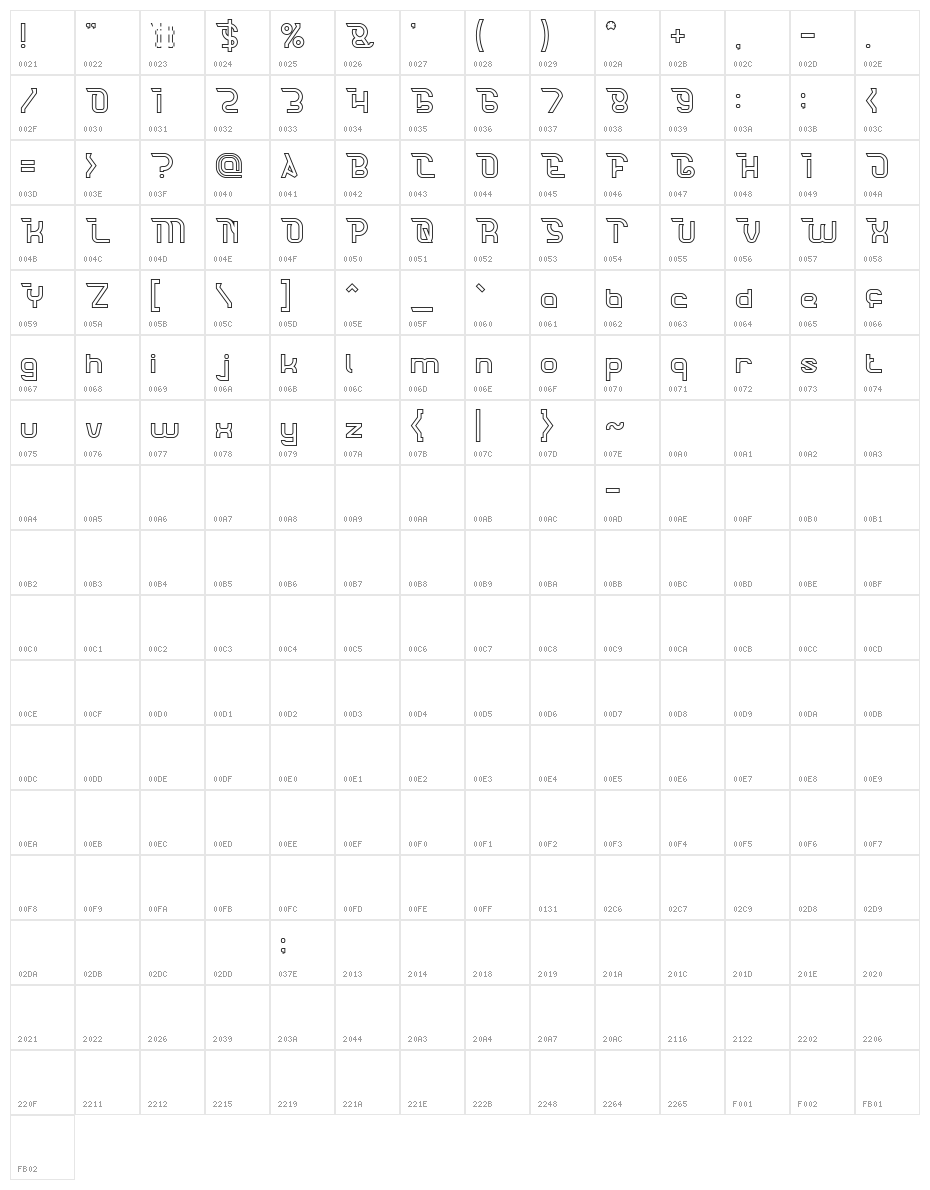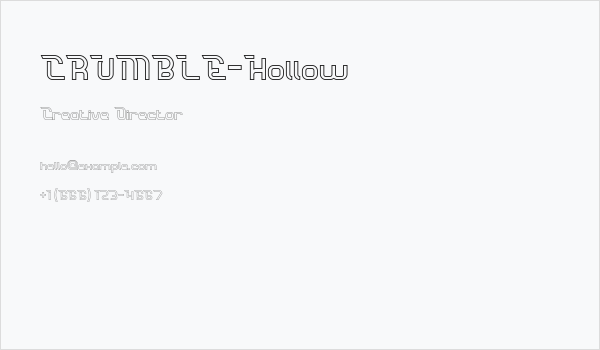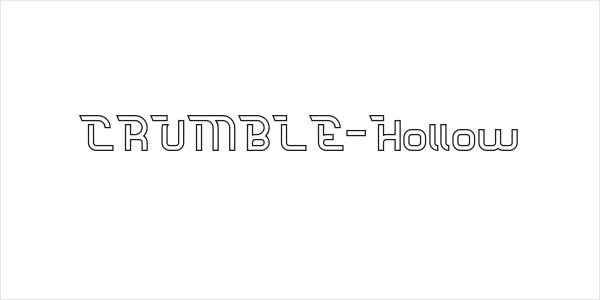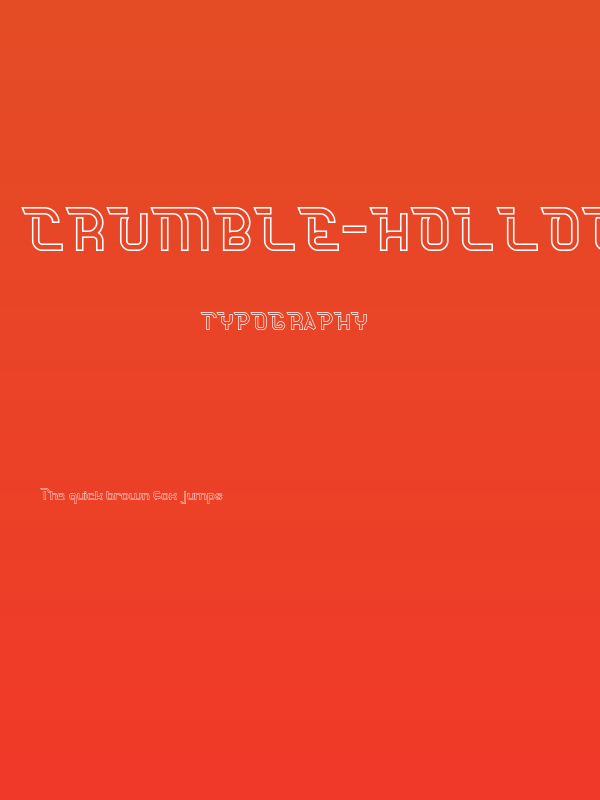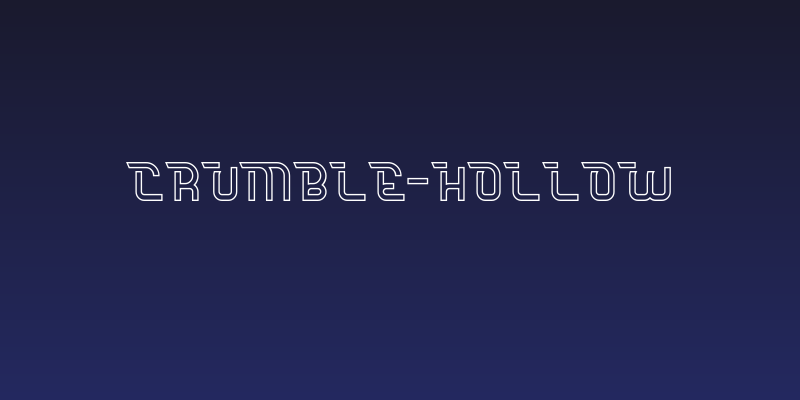
CRUMBLE-Hollow Font
CRUMBLE-Hollow Description
This font features a unique hollow design with a geometric and modern aesthetic. The uppercase and lowercase letters are crafted with consistent line thickness, creating a uniform appearance. The characters have a futuristic feel, with angular cuts and sharp edges that give them a distinct look. The numbers and special characters follow the same design principles, ensuring a cohesive style throughout. This font's hollow nature allows for creative layering and color play, making it versatile for various design projects.
| Proposed Projects | Ideal for futuristic branding, tech-related designs, posters, and digital artwork. |